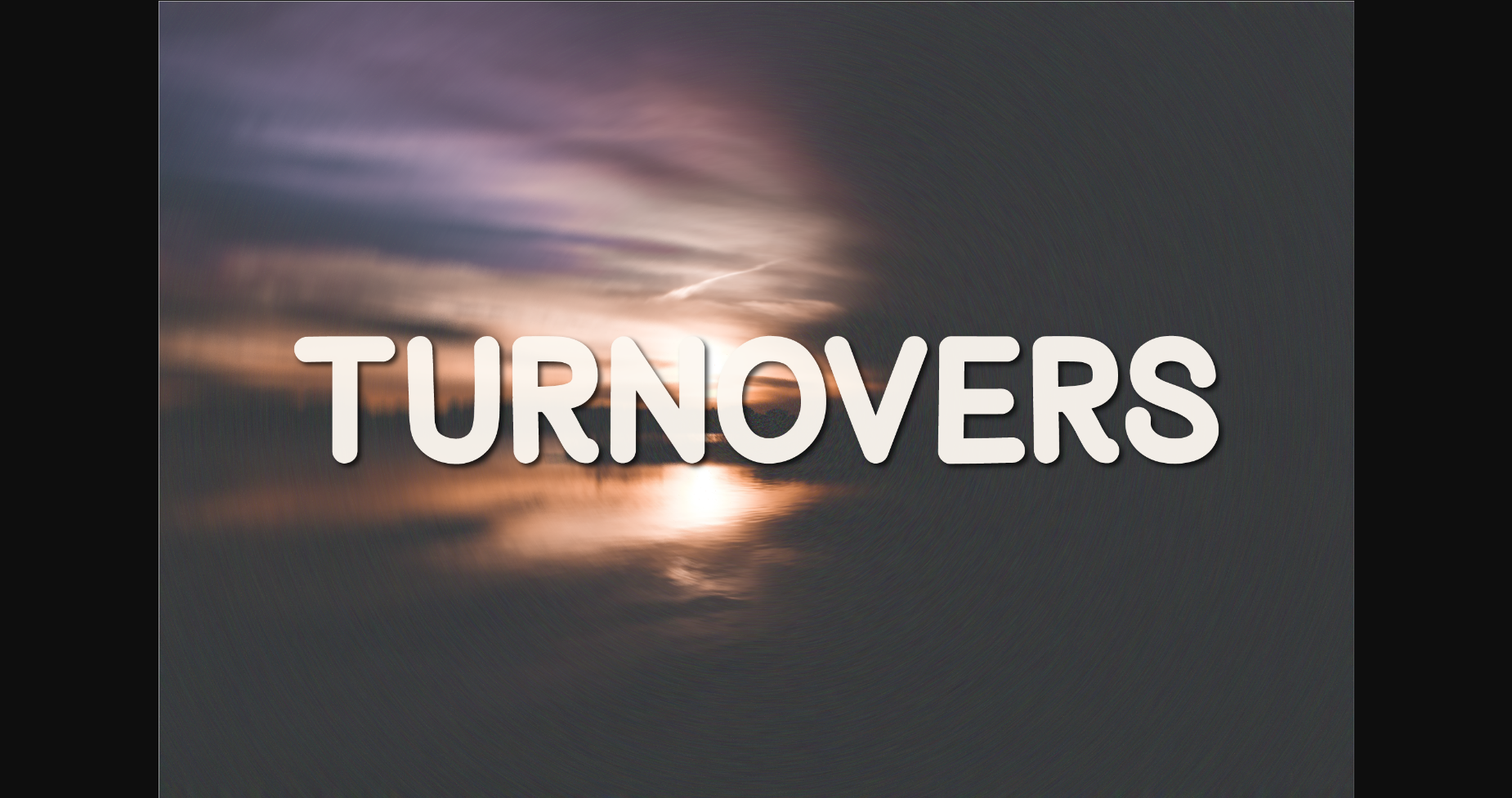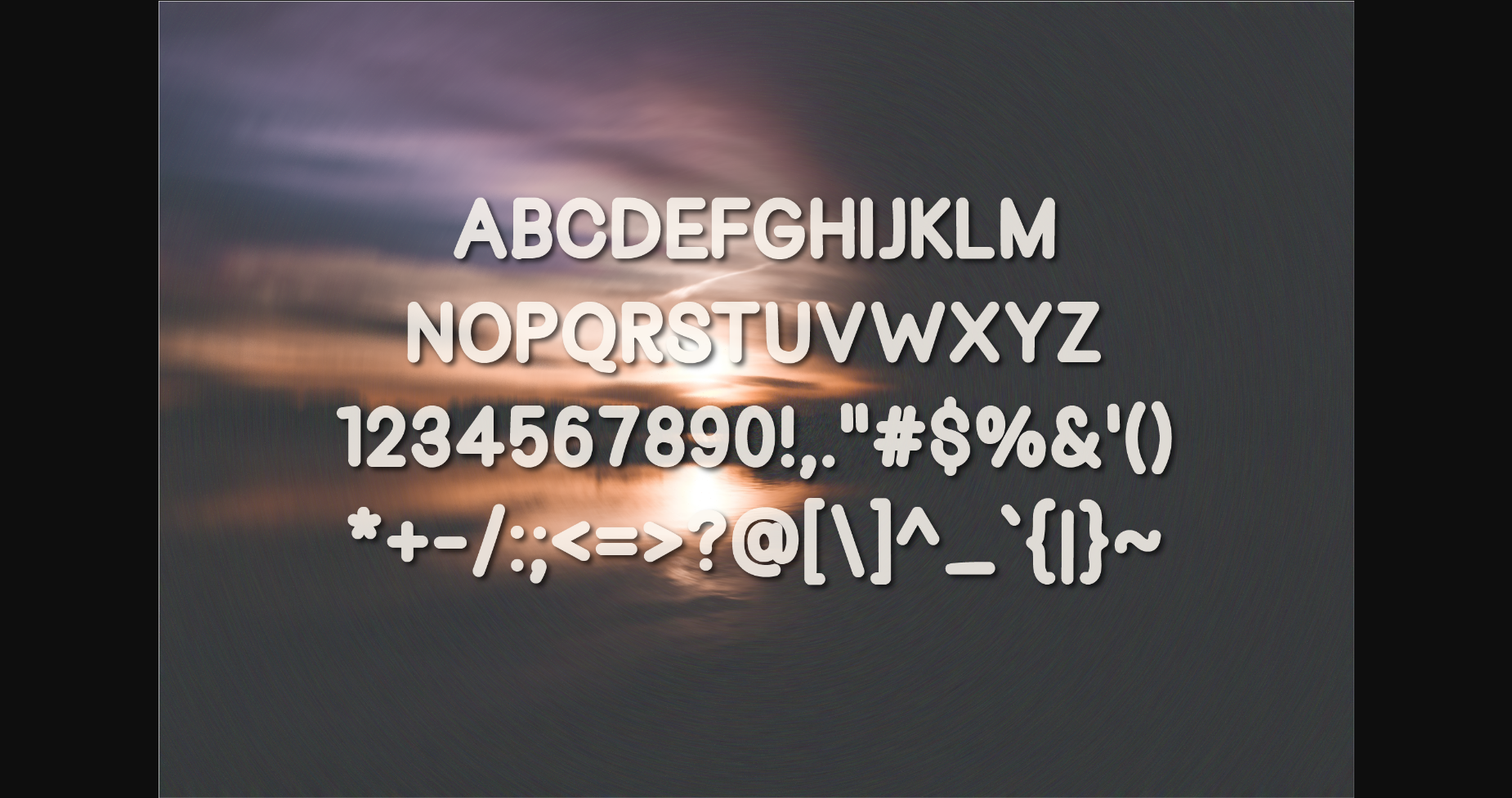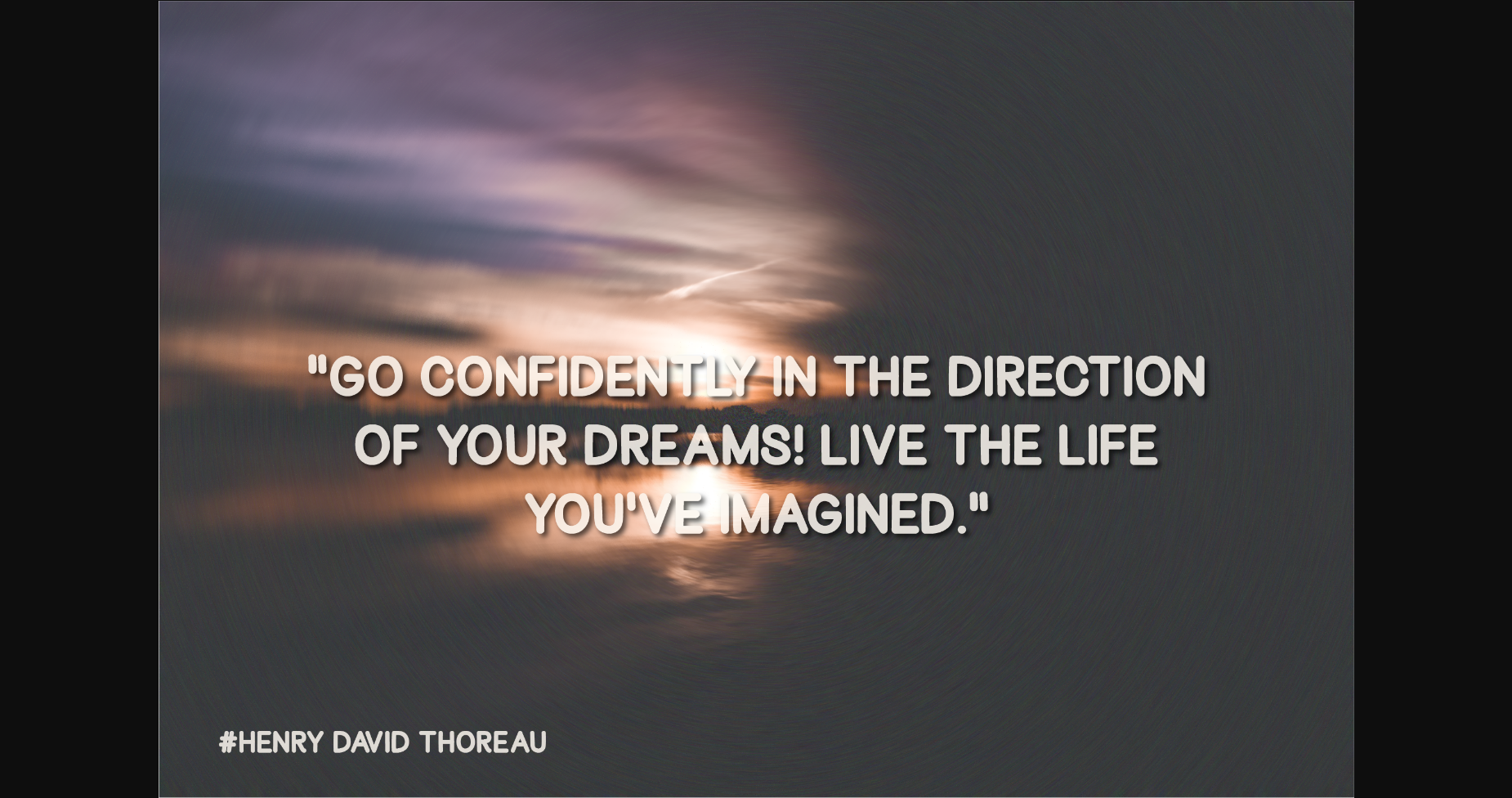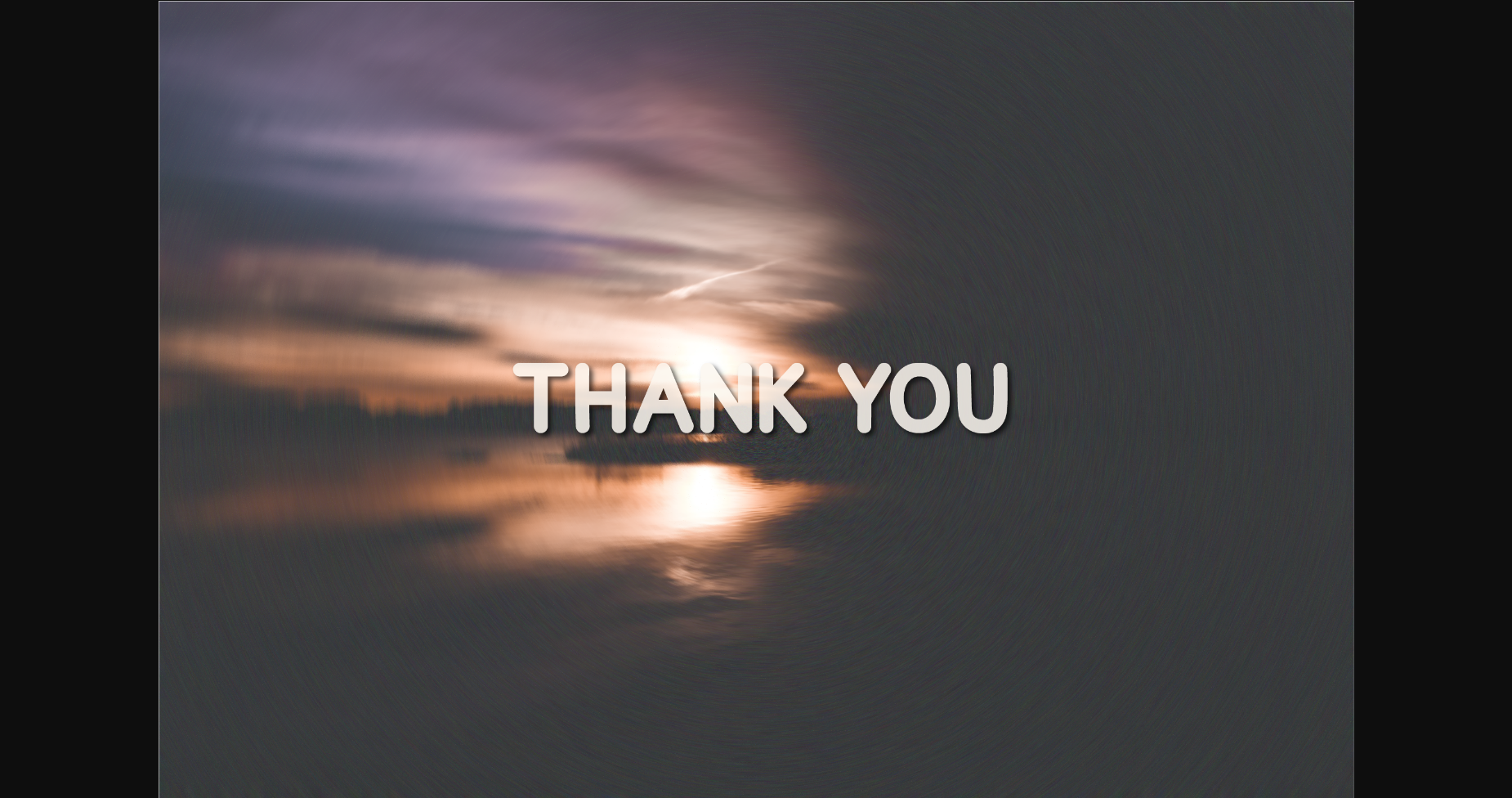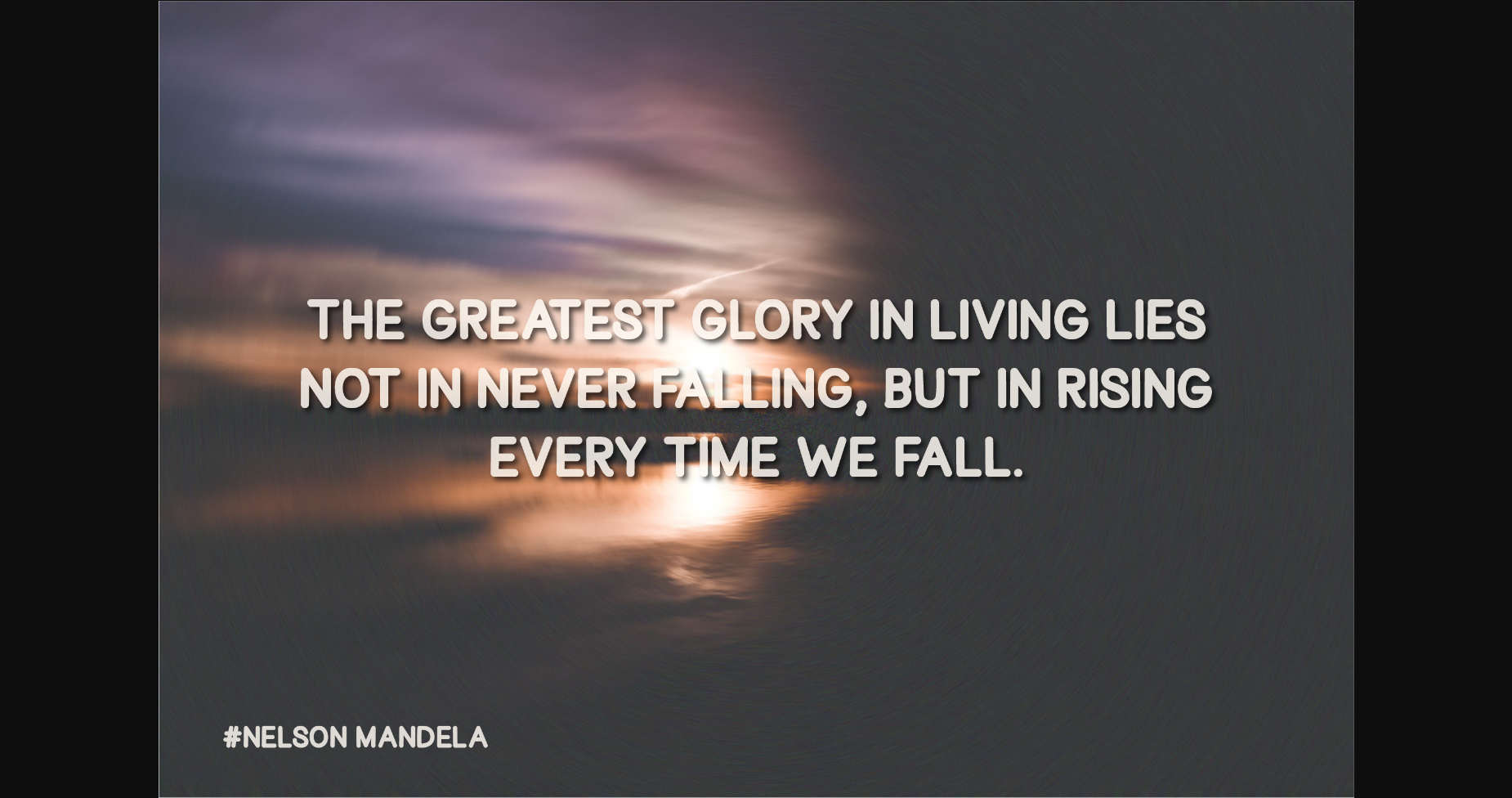
HomeSans Serif FontsTurnovers Font Sans Serif Fonts Turnovers Font FacebookXPinterestWhatsApp 1 of 7 ... Turnovers Font Poster 2... Turnovers Font Poster 3... Turnovers Font Poster 4... Turnovers Font Poster 5... Turnovers Font Poster 6... Turnovers Font Poster 7... About Turnovers Font Turnovers is a quirky all-caps font made up of capital letters. This font is perfect for social media or crafty projects. Simple and smooth perfect for crafting, t-shirts, decals, cards, invitations and so much more. DOWNLOAD NOW People also explored Klapjo Almahyra Font Sonice Font Brutaly Font Cherry Lemonade Font Blonding Panda Font Bat Tornado Duo Font Forlove Font Sonagihen Font 399 0 TagsTurnovers Font Previous articleAlmonds FontNext articleStrawberries Font LEAVE A REPLY Cancel reply Comment: Please enter your comment! Name:* Please enter your name here Email:* You have entered an incorrect email address! Please enter your email address here Website: Save my name, email, and website in this browser for the next time I comment. Personal Use Free Autumn Flowers Font Personal Use Free Read more about this font Rothwell Personal Use Free Read more about this font Kaylafiz Personal Use Free Read more about this font Doriath Personal Use Free Read more about this font BLOG 5 Fonts That Will Dominate Design Trends in 2026 5 Fonts for 2026 That Will Dominate Design Trends Typography plays a critical role in visual communication, and as we look ahead to 2026, it’s... Top 7 Google Fonts Alternatives for Faster and Privacy-Friendly Web Design (2025) Free vs Paid Fonts: Why Investing in Premium Fonts Is Worth It Best Fonts for T-Shirt Design – Top 2025 Picks